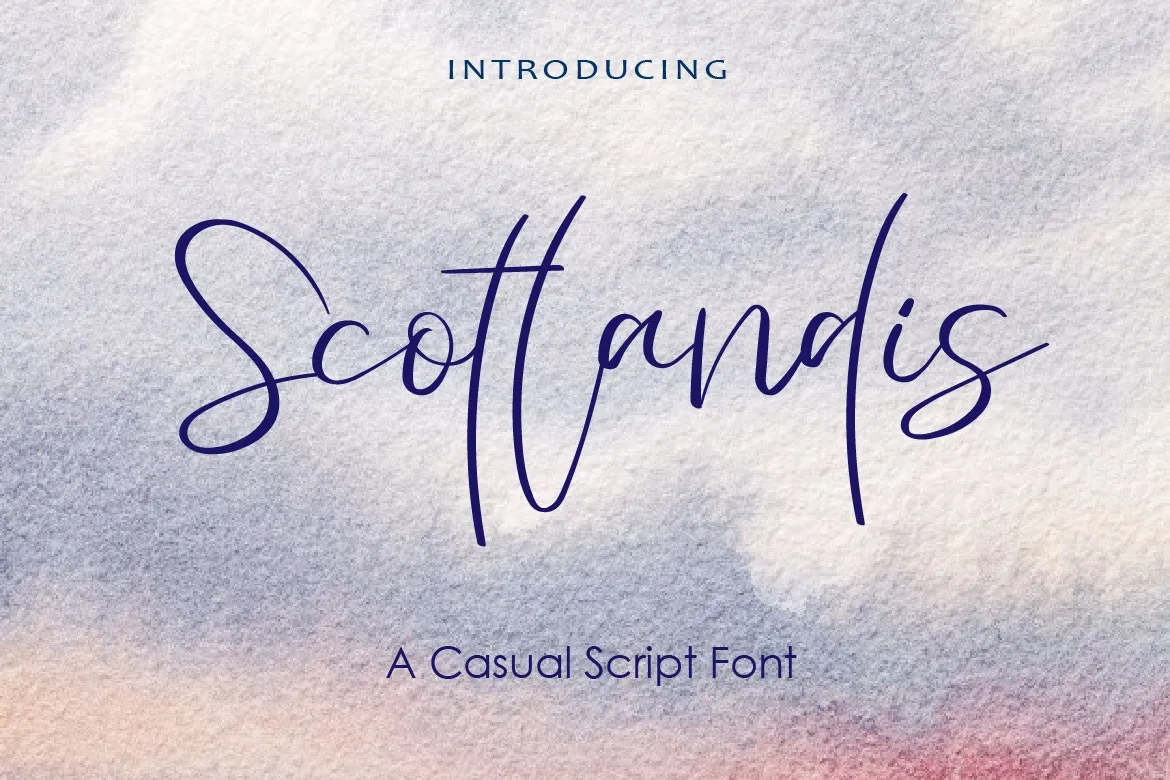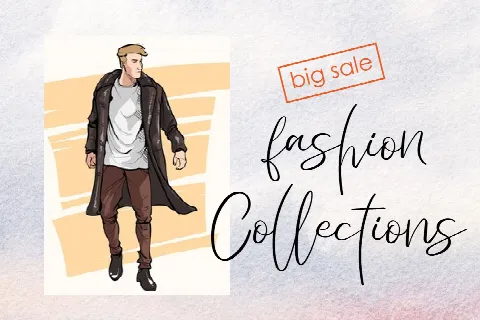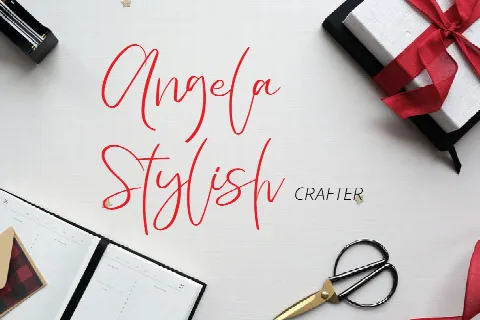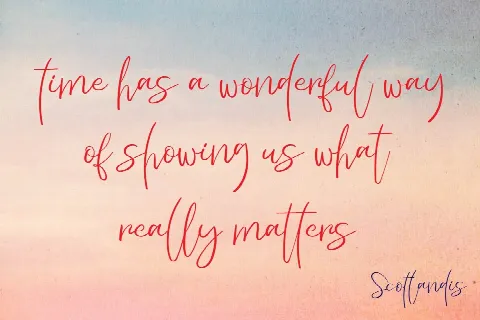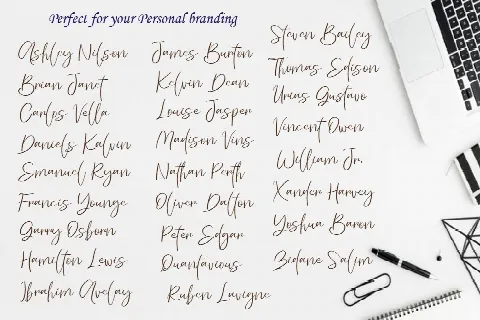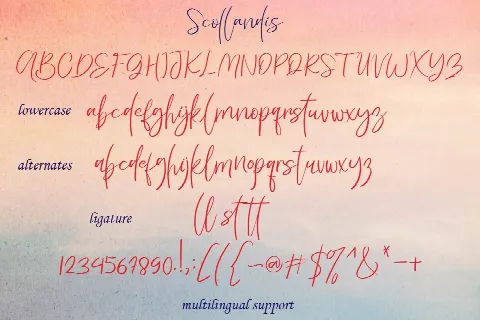
Scotlandis
Scotlandis is a casual script, full of personality and curves. This font was designed using quick strokes to create natural handwritten, to give the font a natural look in a digital world. Perfect for any awesome project that need hand writing taste.
This is suitable for logos, watermarks on photography, signatures, branding, advertisement, quotes, invitations, stationery, wedding design,album covers, business cards, clothing, magazines, posters, and more!